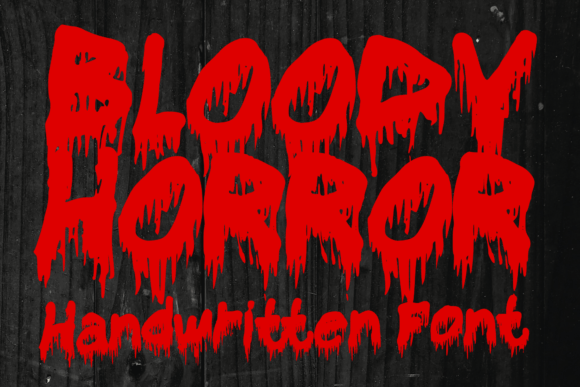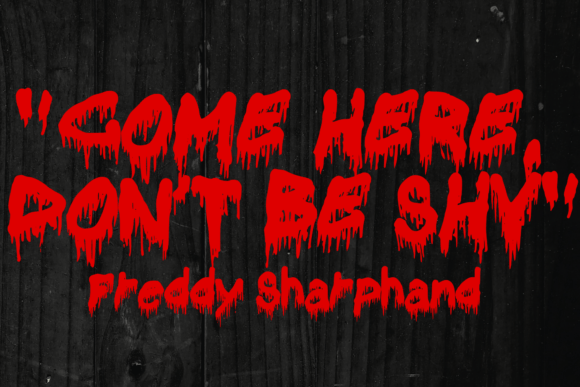
Bloody Horror Font
Bloody Horror is a very cool ink-made handwritten font. It will be perfect for your horror and Halloween themed needs! You can use it for anything ranging from t-shirts and clothing, for your scary book designs, Halloween party needs, greeting cards, stickers, posters, banners, or anything that needs a horror touch. Try it to create fabulous designs and feel the horror and Halloween vibes with it!